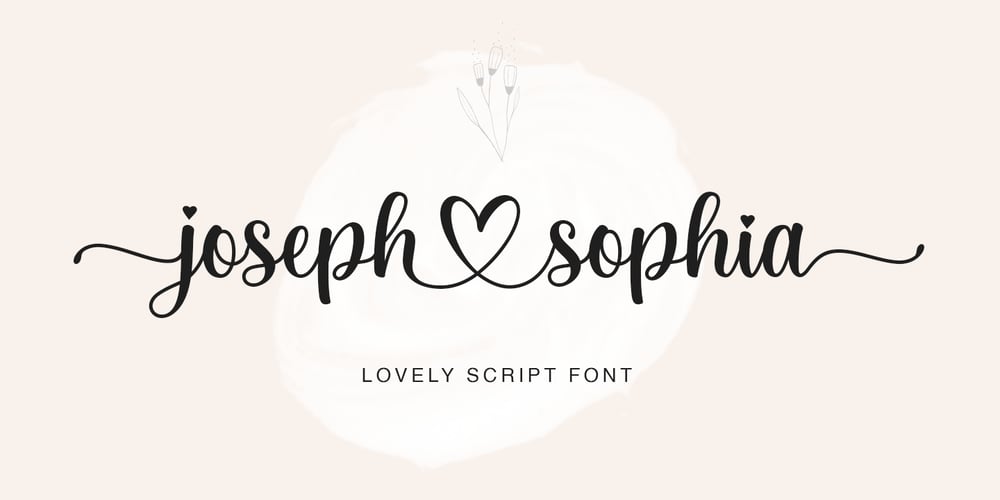
Joseph Sophia
Joseph Sophia font
Joseph Sophia Font Family was designed by Fajar Gunawan and published by Fargun Studio. Joseph Sophia contains 1 styles and family package options. Joseph Sophia! A new fresh ans modern hand lettered font with decorative characters and a dancing baseline. So beautiful on invitation like handicraft, greeting cards, branding materials, business cards, quotes, posters, and more design concepts.Features : Unique ligatures Stylistic sets Basic Latin A-Z and a-z Numbers International Symbols included Punctuation Please send a message if you have questions or problems, and don’t hesitate to say hello on Instagram https://www.instagram.com/fargunstudio/Thank you.